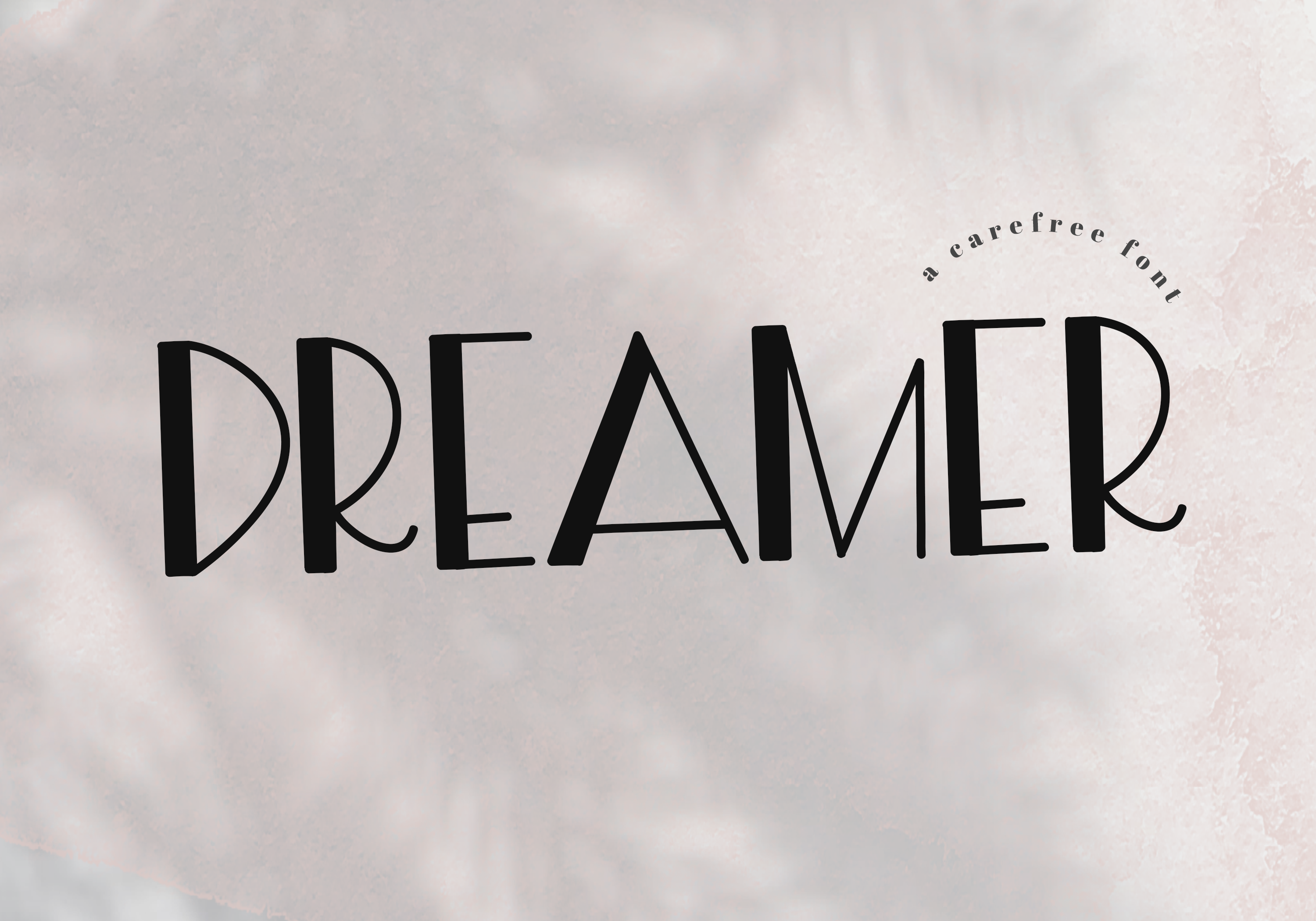
Dreamer - Free Spirit Font
Dreamer is a fun, free spirit - display font.
This font is perfect for quotes, headings, blogs, logos, invitations and more!
This font does include accent characters.